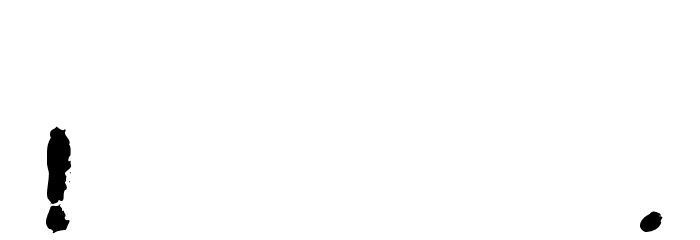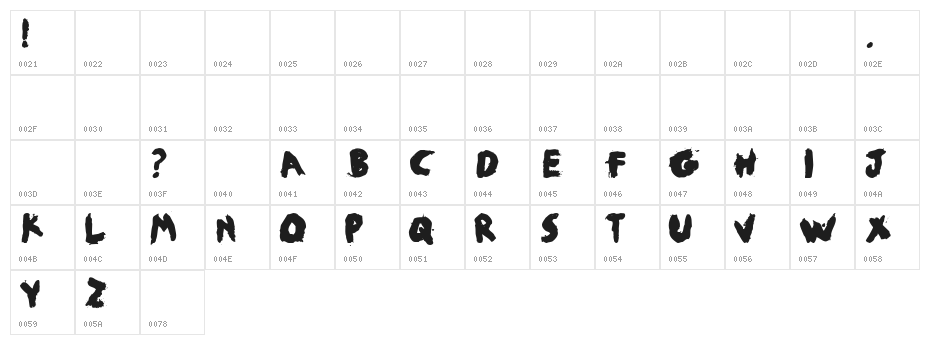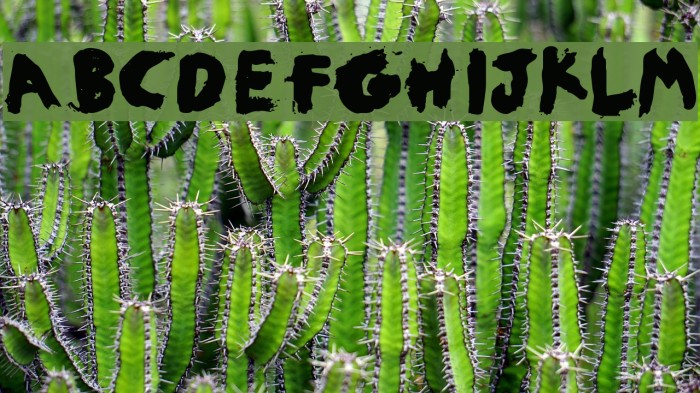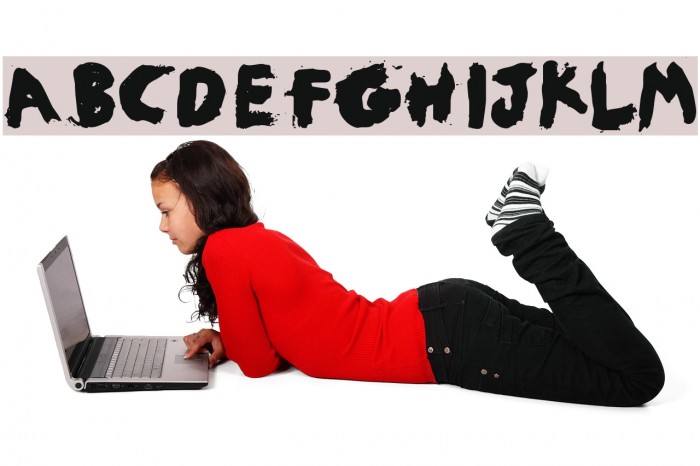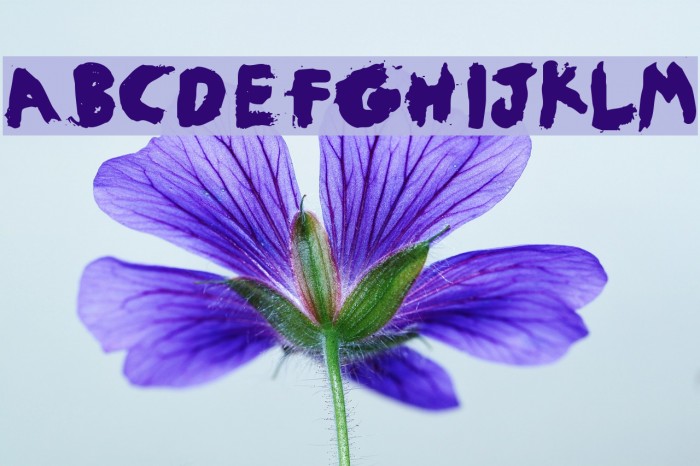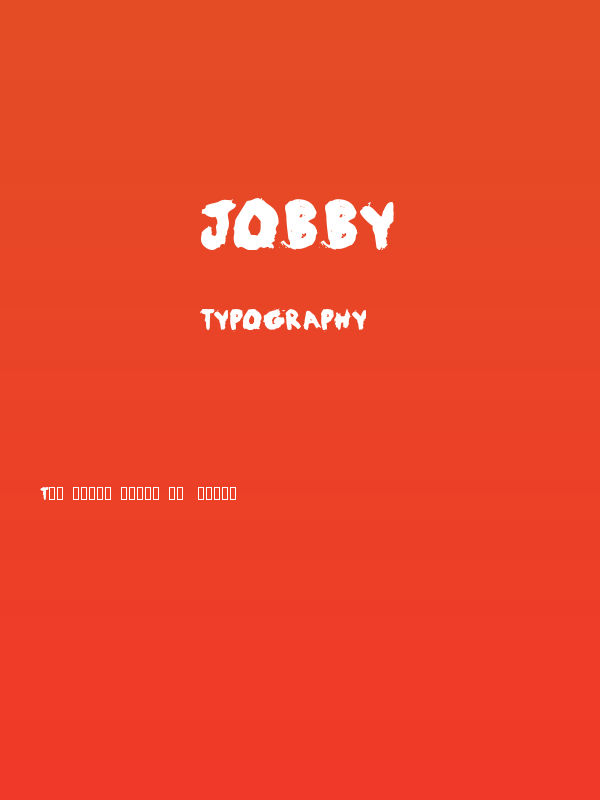
jobby Font
jobby Description
This font features a bold and expressive style with a textured, brush-like appearance. The uppercase letters are prominently displayed with a rugged, hand-painted look, giving each character a unique and artistic flair. The strokes are uneven, adding to the organic and dynamic feel of the font. The exclamation mark and period also carry the same textured style, enhancing the overall cohesive design. This font is ideal for projects that require a bold statement or an artistic touch.
| Overall Style | Artistic, Expressive |
| Proposed Projects | Ideal for posters, album covers, artistic branding, and creative headlines. |